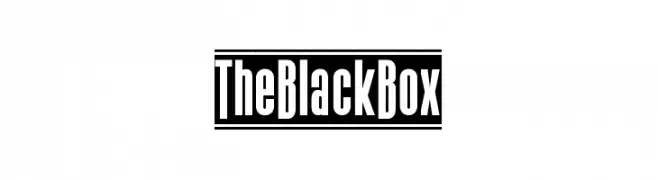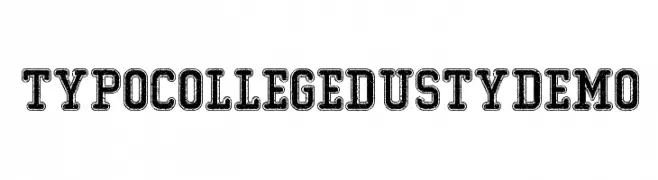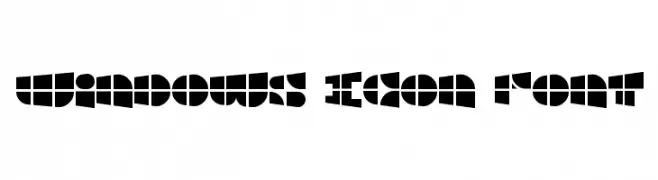
A bold, italicized font with sharp angles and a modern, dynamic style.
A bold, angular italic font with a modern, dynamic style.
A playful handwritten font with smooth curves and a casual style.
A modern, minimalist font with rounded edges and uniform stroke width.
A bold, decorative font with vintage flair and intricate detailing.
A bold, decorative font with intricate detailing and a vintage flair.
A lively, handwritten-style font with bold, irregular strokes.
A playful, handwritten-style font with consistent stroke thickness and a casual feel.
A bold, playful font with rounded edges and a hand-drawn look.
A bold, playful, and slightly cursive font with a handwritten feel.
A bold, cursive-inspired font with a dynamic and fluid style.
A playful, handwritten script font with smooth, rounded strokes.
A playful, bold outline font with rounded characters and consistent thickness.
A playful, bold outline font with a modern cursive style.
A playful, hand-drawn font with rounded edges and a semi-bold weight.
A playful, semi-bold cursive font with smooth, fluid strokes.
A dynamic, brush-style cursive font with elegant swashes and fluid strokes.
A bold, futuristic font with geometric shapes and sharp angles.
A futuristic, geometric font with sharp, angular letterforms.
A bold, traditional music notation font for sheet music.
A bold, decorative font with intricate geometric patterns.
A bold, geometric font with a strong, industrial style.
A bold, robust font with thick strokes and a friendly yet authoritative appearance.
A bold, hand-drawn font with a rough, sketch-like appearance.
A bold, hand-drawn font with a rough, textured appearance and dynamic style.
A geometric, angular font with a modern, digital aesthetic.
A playful handwritten font with smooth, flowing cursive lines.
A playful, hand-drawn font with an informal, organic style.
A bold, geometric font with a modern and industrial style.
A bold, distressed font with a grunge aesthetic.
A bold, distressed font with a grunge, textured style.
A bold, handwritten font with a playful and energetic style.